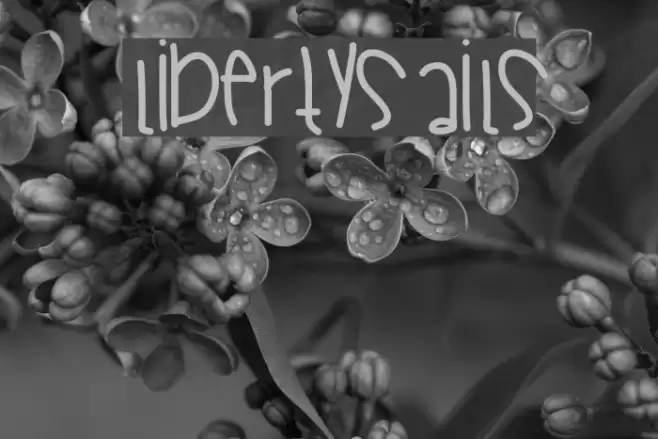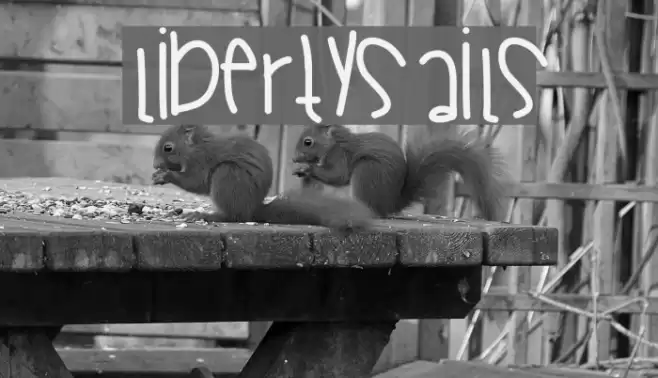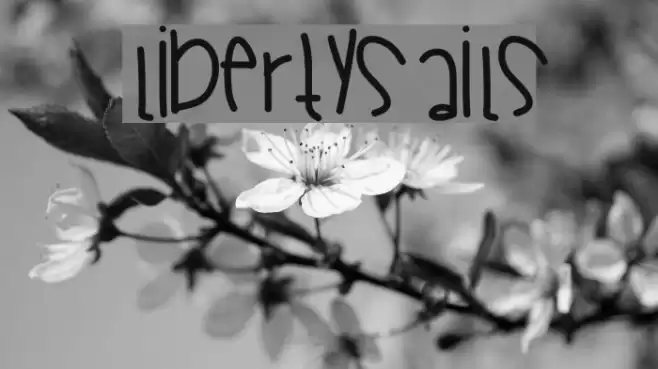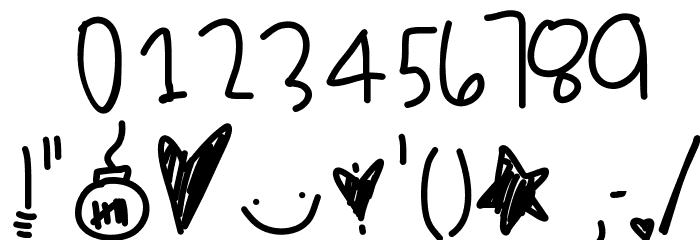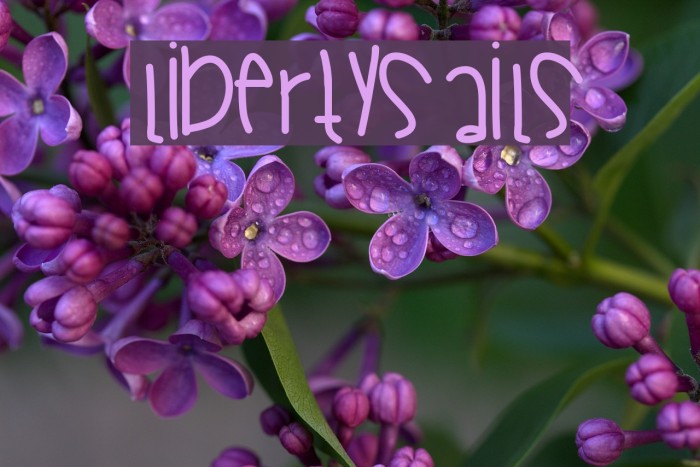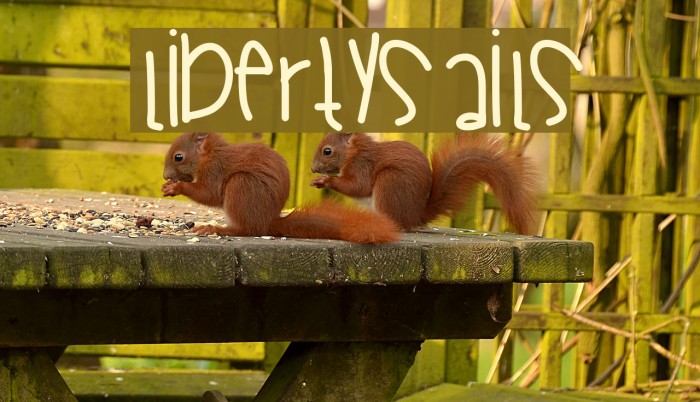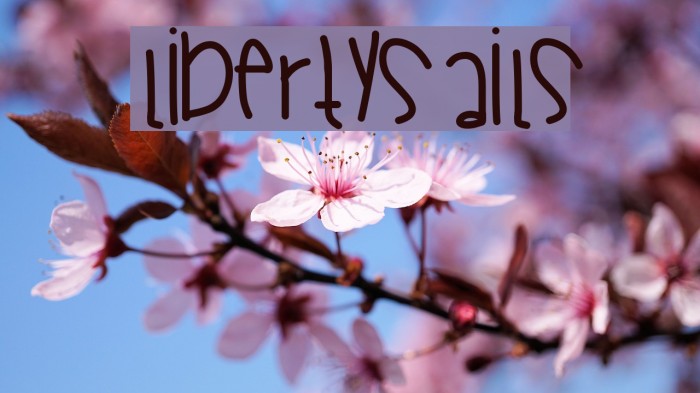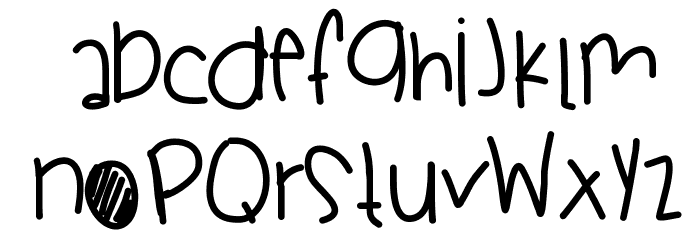
LibertySails Font
LibertySails Description
This playful and whimsical font features a handwritten style with a casual, friendly appearance. The characters are slightly irregular, adding a personal touch and charm. The uppercase and lowercase letters are distinct, with rounded edges and a consistent stroke width that gives it a cohesive look. The numbers and special characters maintain the same playful aesthetic, making it suitable for creative projects. The font's informal style is perfect for conveying a sense of fun and spontaneity.
A playful, handwritten font with a casual and friendly style from Handwritten fonts.
- Proposed Projects: Ideal for children's books, greeting cards, playful branding, and informal invitations.
- Overall Style: Playful
- Use Case: Headlines, Logos, Informal Text